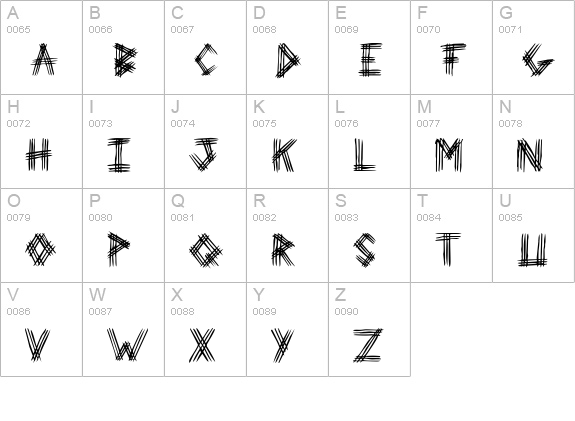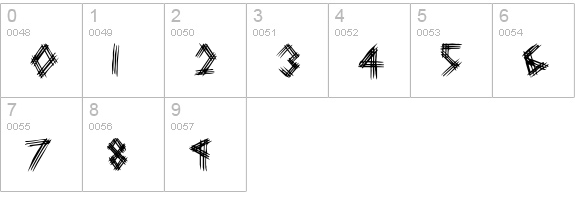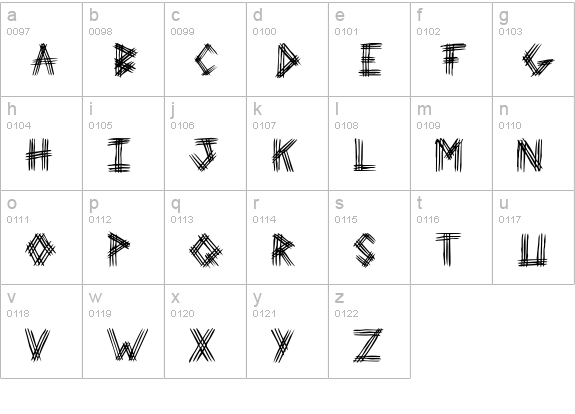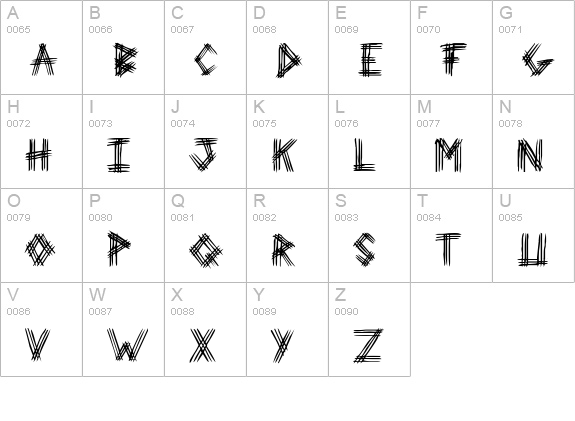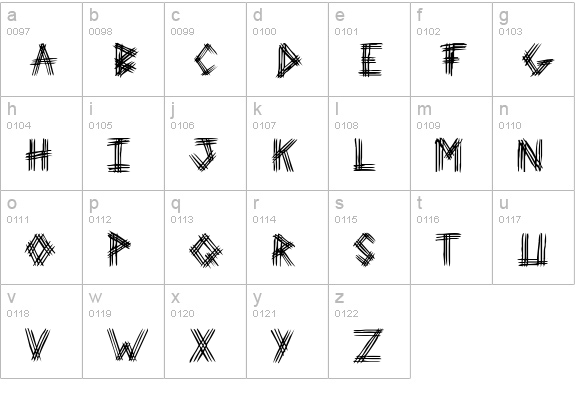
3 Prong Tree Font Details
The 3 Prong Tree font is a whimsical and unique typeface that brings a touch of nature-inspired charm to your designs. With its playful three-pronged branches extending from each letter, this font is sure to stand out and make a statement. Perfect for projects that call for a fresh and organic look, 3 Prong Tree adds a creative flair to any design. And the best part? The 3 Prong Tree font is completely free to download at FontsMarket.com! Whether you're working on a personal project or a professional design, you can easily access this delightful font to elevate your work. Don't miss out on the opportunity to add a touch of creativity and nature to your designs with the 3 Prong Tree font.